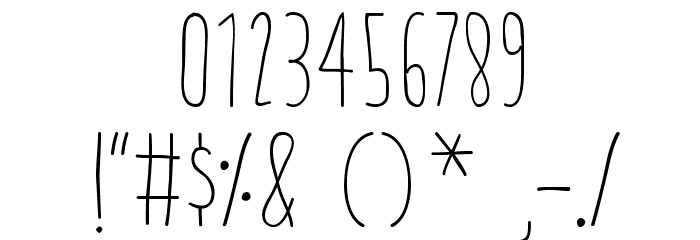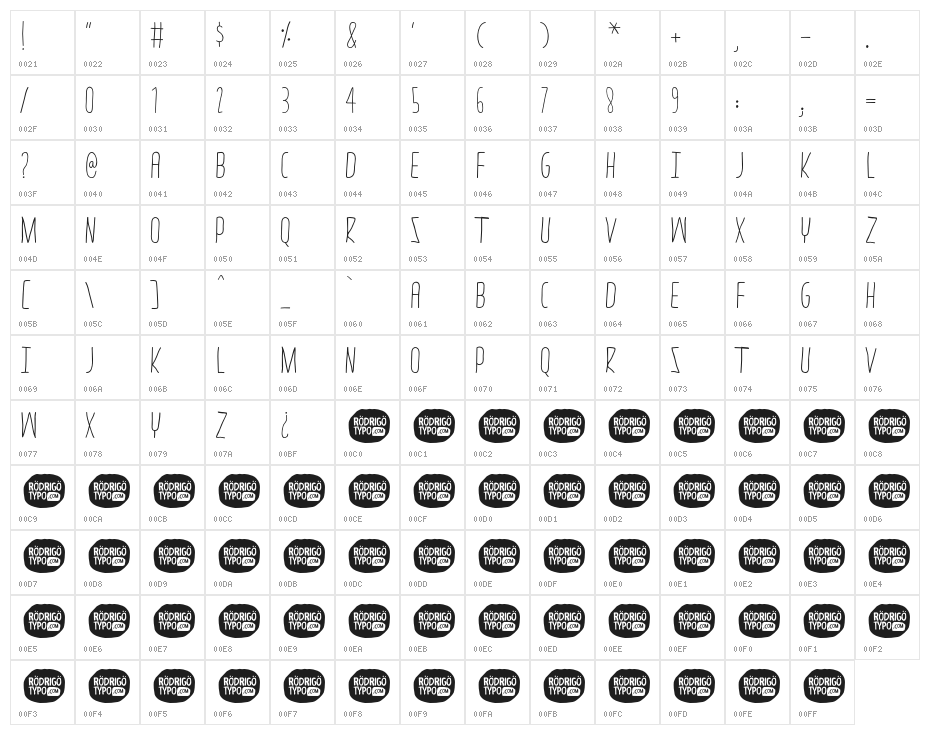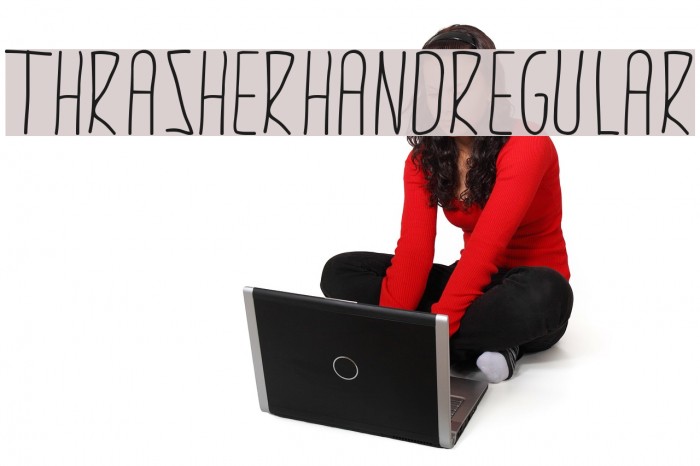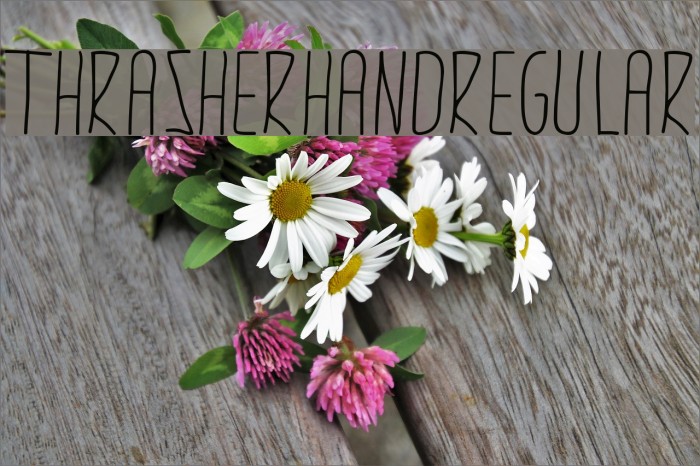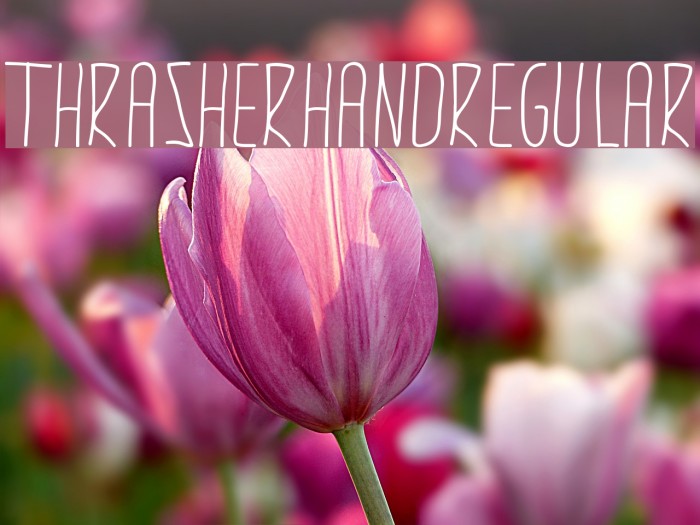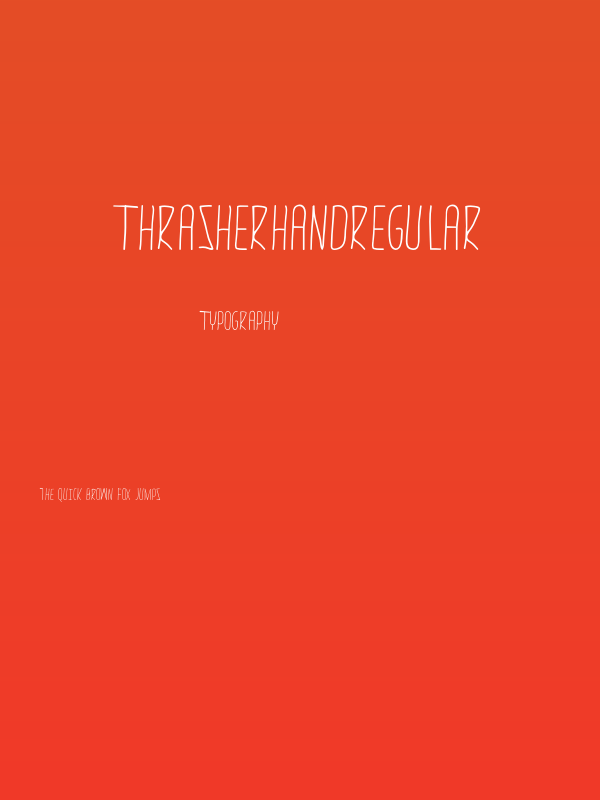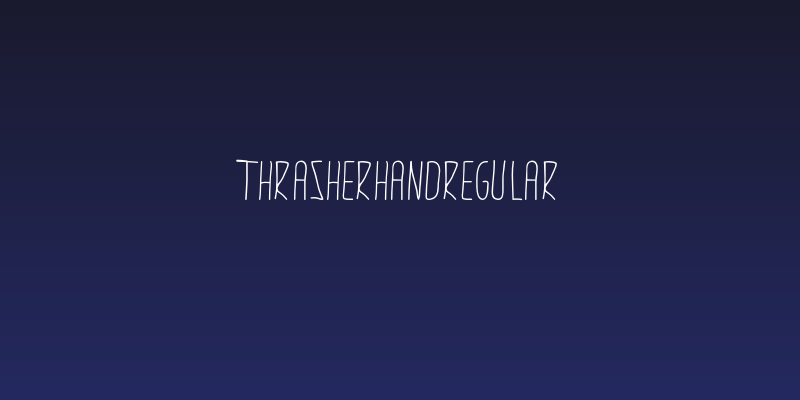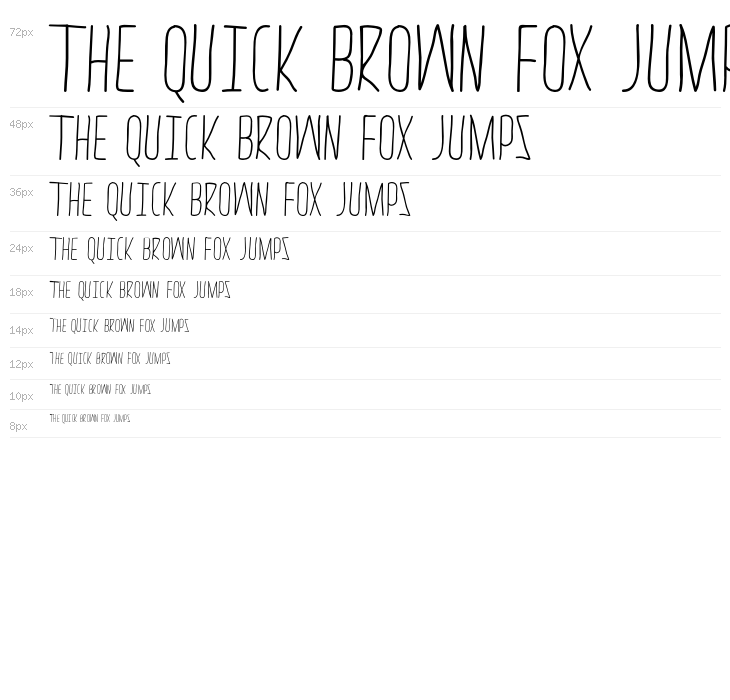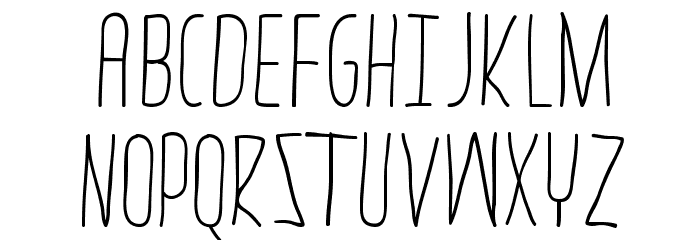
thrasherhandRegular Font
thrasherhandRegular Description
This font features a unique, hand-drawn style with elongated and slightly irregular letterforms, giving it a casual and artistic appearance. The uppercase and lowercase letters maintain a consistent height, contributing to a uniform look despite the playful nature of the strokes. The numbers and special characters follow the same design principles, ensuring cohesion across all glyphs. The overall aesthetic is reminiscent of hand-lettering, making it suitable for projects that require a personal touch. Its thin strokes and slight variations in line thickness add to its charm, while maintaining readability.
| Proposed Projects | Ideal for creative projects such as posters, invitations, and branding materials that require a personal, artistic touch. |